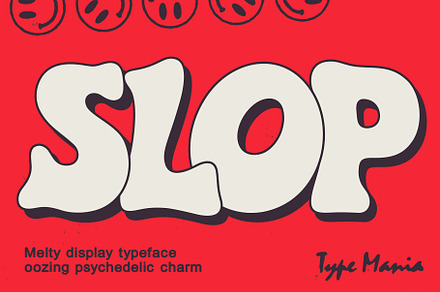
Slop TM – Melting Bubble Font
A bubble font with a melting distortion, where the letterforms sag and pull downward as though softening under heat.
The distortion follows a consistent physical logic across every character, which is what keeps a set word looking like one melting object.
- Consistent melt distortion logic
- Alternates for variation
- Music and club graphics
- Streetwear and merch print
- Y2K and psychedelic design
- Poster and social work